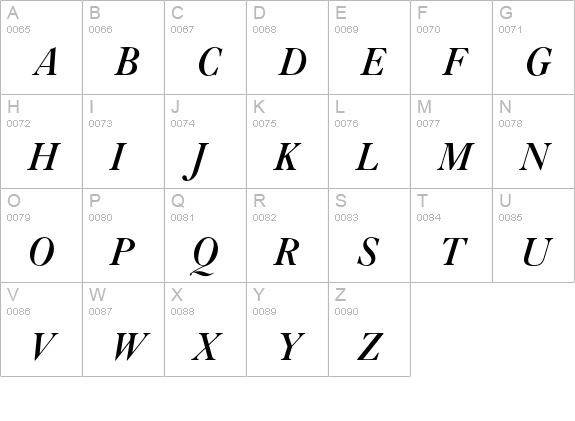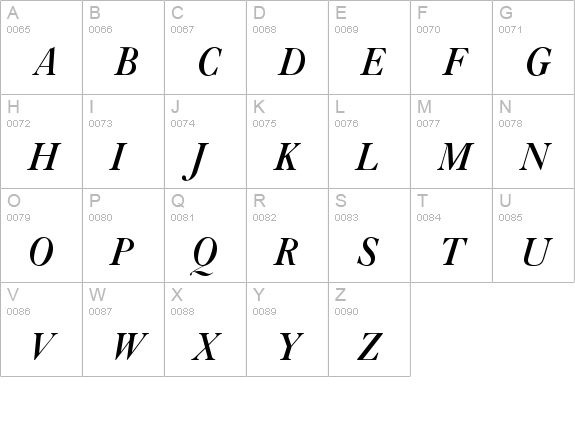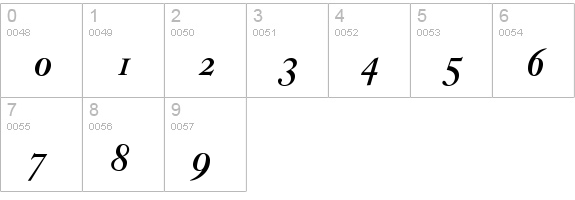
OPTIAmericanCaslon-ItSwash Font Details
Introducing OPTIAmericanCaslon-ItSwash font, a stunning display of elegance and sophistication in every curve and swirl. This exquisite typeface exudes a timeless charm and a touch of vintage flair, making it perfect for adding a touch of luxury to your design projects. With its delicate swashes and intricate details, OPTIAmericanCaslon-ItSwash font is sure to captivate and impress your audience. Whether you are designing invitations, branding materials, or editorial layouts, this font will elevate your work to a whole new level of refinement and beauty. The best part? OPTIAmericanCaslon-ItSwash font is available for free download at FontsMarket.com, making it easily accessible for designers and creatives looking to enhance their projects with a touch of sophistication. Don't miss out on the opportunity to elevate your designs with this stunning typeface today!